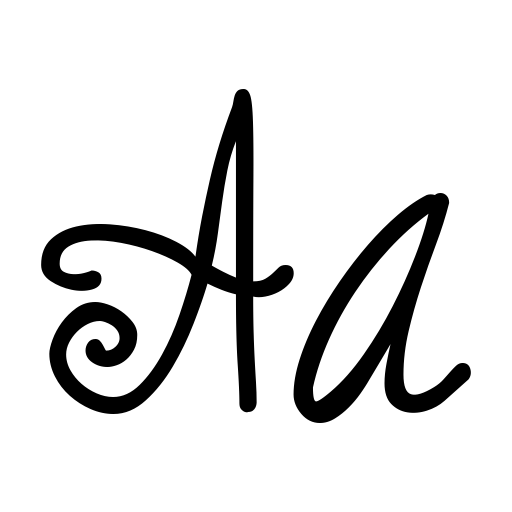
Austie Bost Bumblebee is a whimsical, hand-drawn script font characterized by playful swirls and curls in both uppercase and lowercase letters, creating a charming and lighthearted feel. Its slender strokes and lively letterforms make it perfect for creative branding, invitations, or fun editorial designs where a friendly, informal touch is desired. This font shines in projects that call for personality and a sense of joyful uniqueness.
Austie Bost Bumblebee Font
About Austie Bost Bumblebee Font
| Font family | Austie Bost Bumblebee Font |
| Release date | 2013-10-13 |
| Designer | Austin Owens |